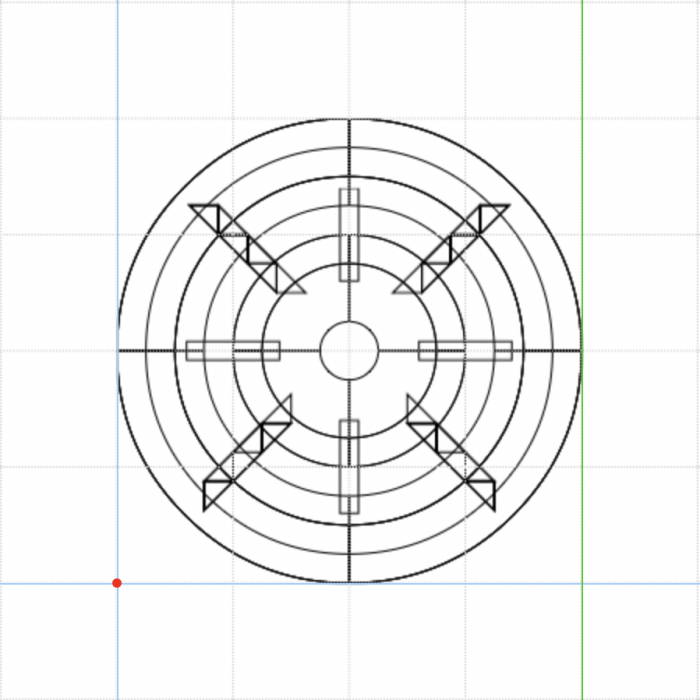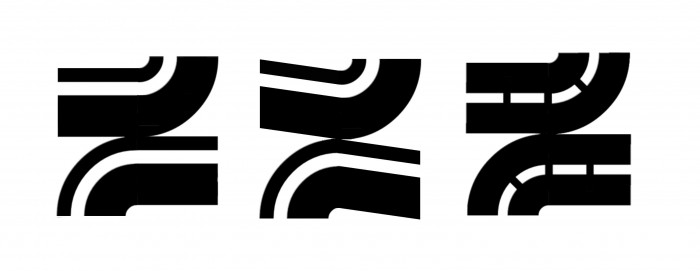
This is how I did it. Not sure if there's a simpler way.
Hmmm... 🤔... (Brain working...). And 2 little ideas for the zs, in case you would consider them.
You're certainly not a fan of that type of Z :)
Changed it.
Thank you a million, dear compañero. Sorry, the z and I walk hand in hand, you know ;)
Brilliant
@meek No need to delete that layer, used it to correct letters such as B,M etc.
Uppercase added.
this is genius!
this looks like bauhaus but pizzazz, but 10/10 font lolll